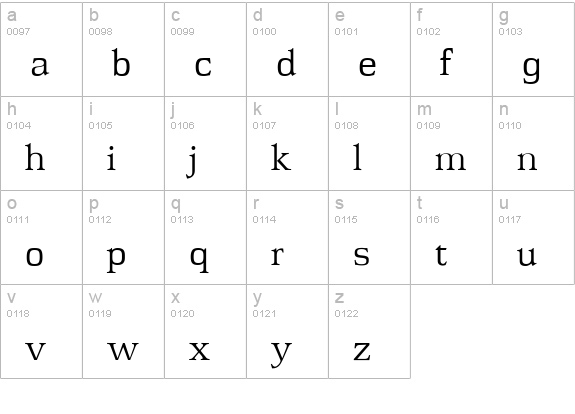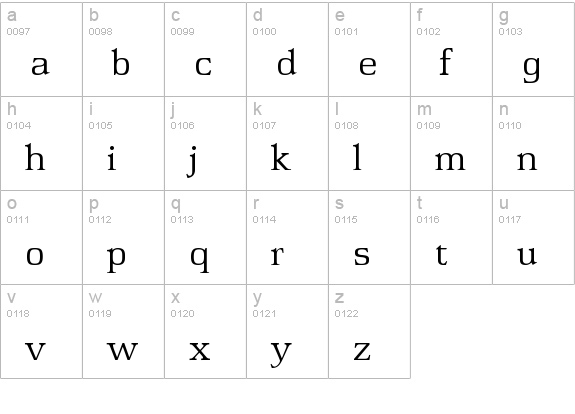
CgJasper Font Details
CgJasper font is a versatile and modern typeface that exudes elegance and sophistication. Its sleek lines and sharp edges make it perfect for a variety of design projects, from branding to editorial layouts. The font's clean and crisp appearance ensures readability while adding a touch of class to any composition. What sets CgJasper font apart is not only its striking design, but also the fact that it is available for free. That's right, you can download this beautiful font at FontsMarket.com without having to spend a dime. Whether you're a designer looking to elevate your work or a business in need of a polished font for your branding, CgJasper is sure to exceed your expectations. With its timeless appeal and professional finish, CgJasper font is a must-have addition to any designer's toolkit. Download it today and see the difference it can make in your projects.